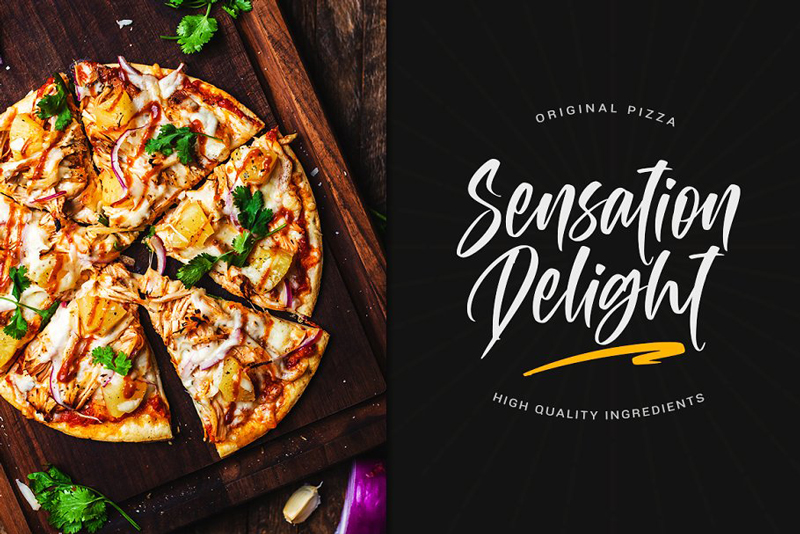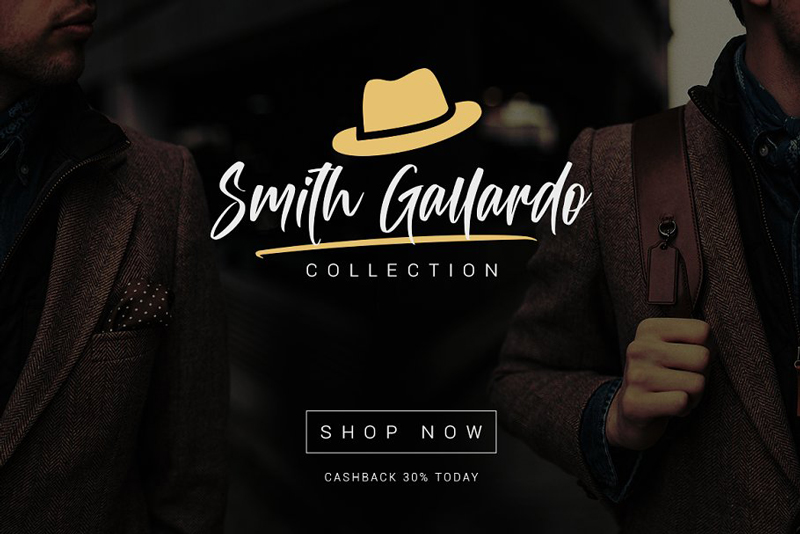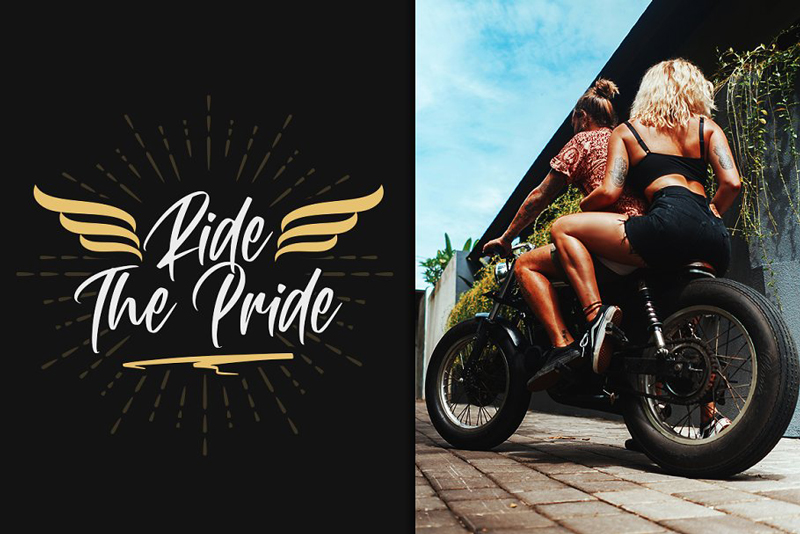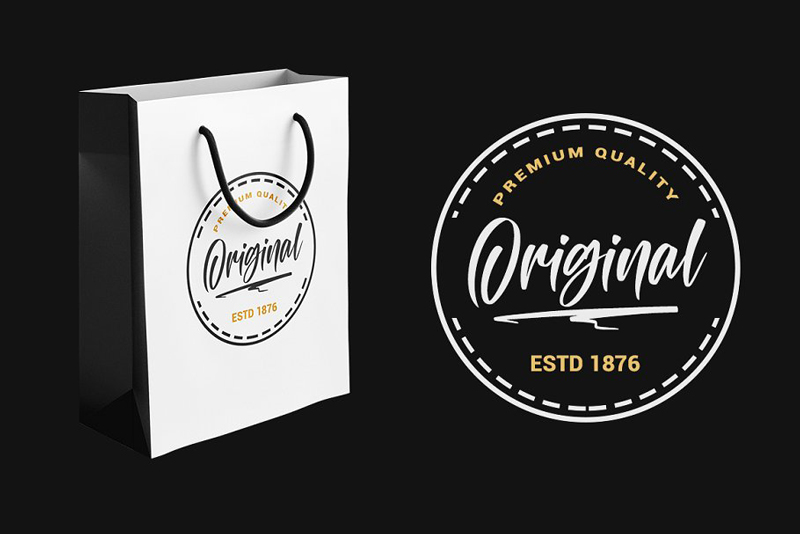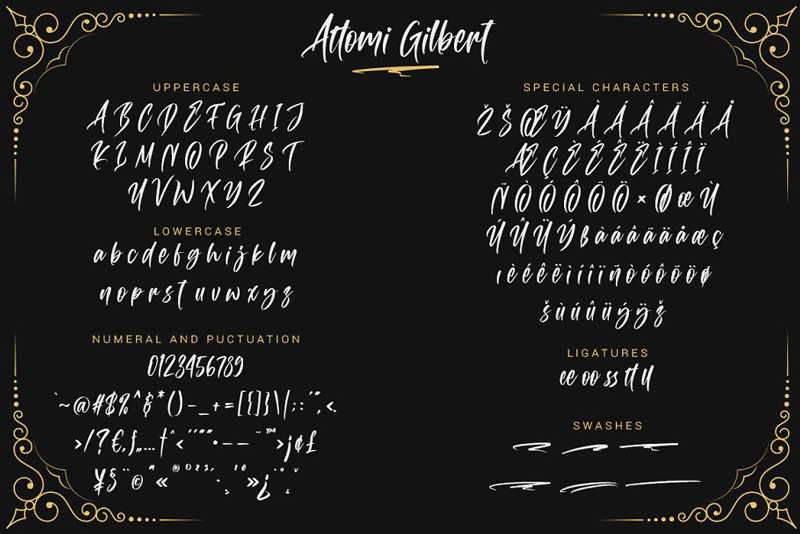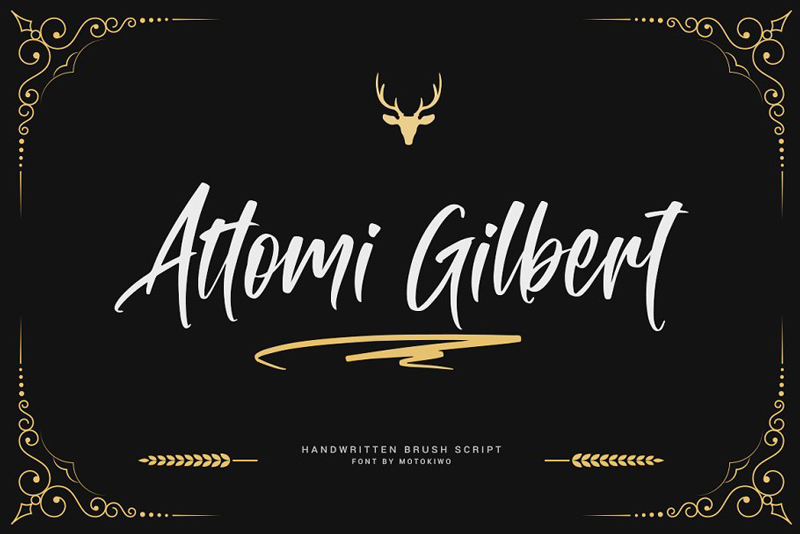
Attomi Gilbert Script Font
Attomi Gilbert Script Font Is a creative market paid product. Attomi Gilbert Script Font is a script type calligraphy font. You can use this font for multiple purposes like vintage, feminine, Calligraphy, Logo, print and web items.
Attomi Gilbert Features
Attomi Gilbert Script Font has Ligatures, Swashes, Access All Alternates,Attomi Gilbert OTF, TTF, and WOFF, Special Characters (Multilingual),PUA Encoded.